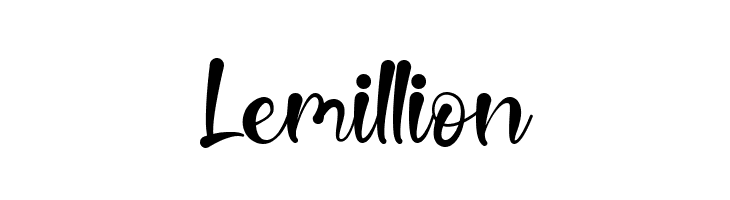
A dynamic and energetic script font with a handwritten feel.
A graceful and flowing script font with a calligraphic style.
A modern, cursive font with elegant, flowing strokes and calligraphic flair.
A bold, cursive font with a flowing, handwritten style.
A bold, expressive handwritten font with dynamic strokes.
An elegant, flowing script font with a sophisticated, handwritten style.
A graceful and elegant script font with fluid, connected letters.
A lively handwritten font with fluid strokes and a playful elegance.